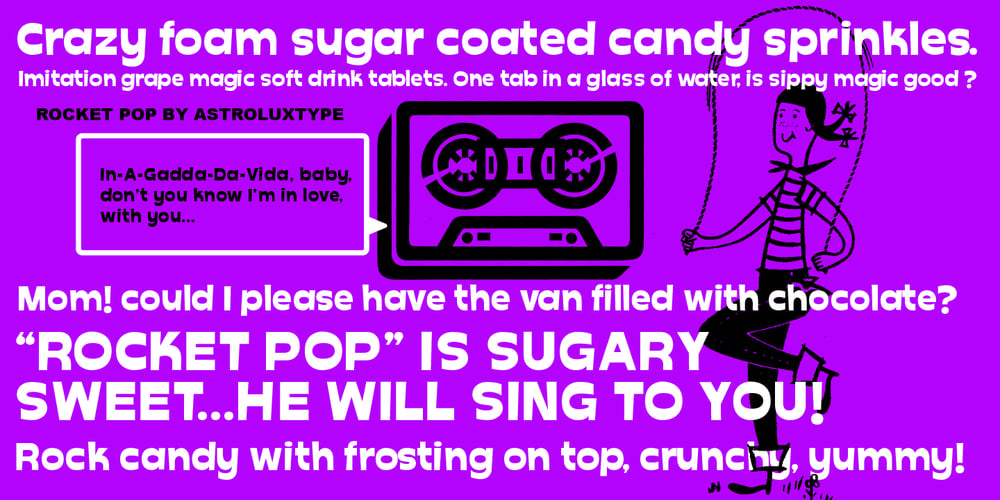
Rocket Pop Font Family was designed by Glenn Parsons and published by astroluxtype. Rocket Pop contains 1 styles and family package options. Rocket Pop and Rocket Pop Outline are influenced by product packaging and cereal box art from the 1960’s and 1970’s. The fonts will work as companions or separate. Best used over 36pt as a headline display face, these fonts will bring a bold playfulness to any project where a vintage or retro style is in the concept. The style reflects the era when things were indeed, mad, where men (and some women) did crazy art for vinyl records, food packaging and kiddie products. Sugar frosted blue donut cereal is yummy for your tummy like… Rocket Pop and Rocket Pop Outline. Buy both and get the discount! Watch for the Cerealboxx Set coming soon that will include the astroluxtype fonts, Sugarbang! Koo Koo Puff and Rocket Pop together in one box.